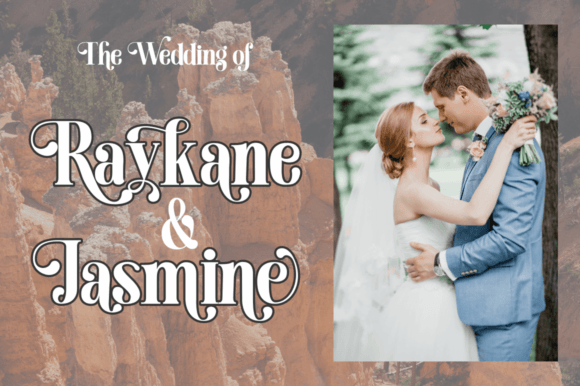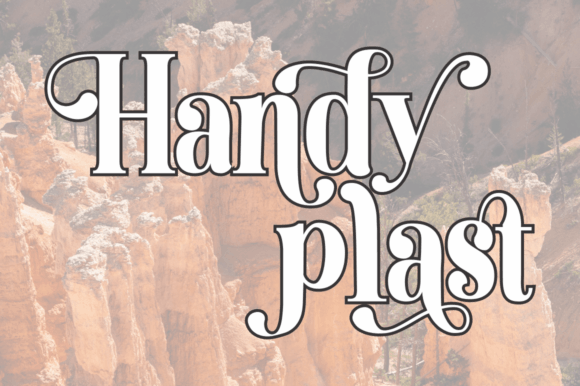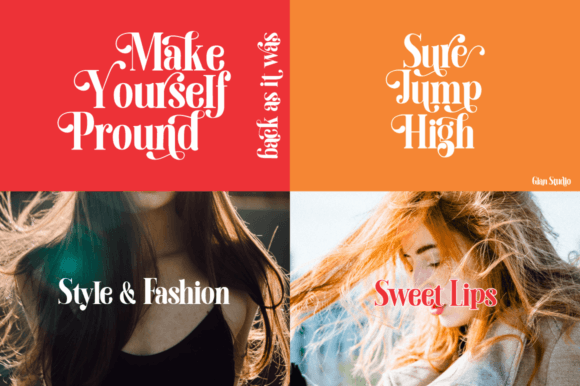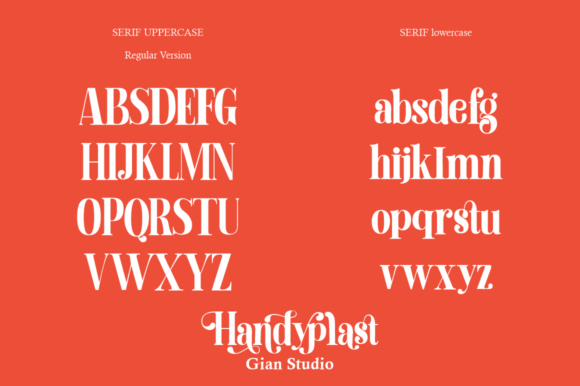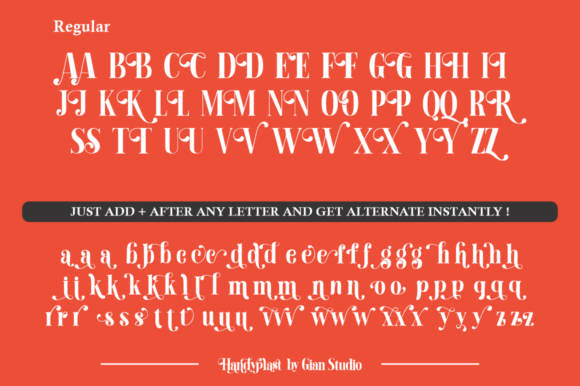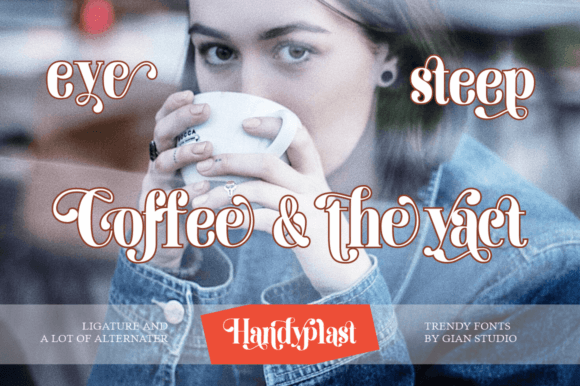
Introduction to Handyplast Font
Handyplast is a classy serif font with a handful of curvy ligatures.
Think Handyplast This font is both bold and elegant.
Key Features of Handyplast Font